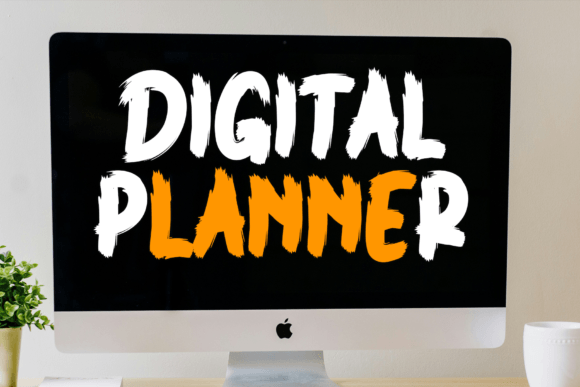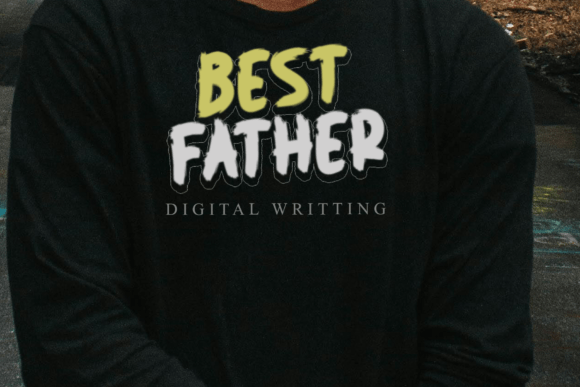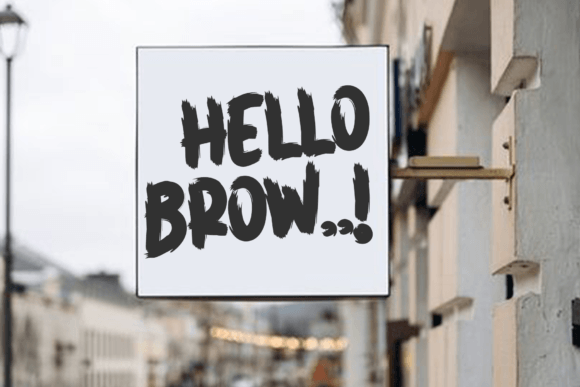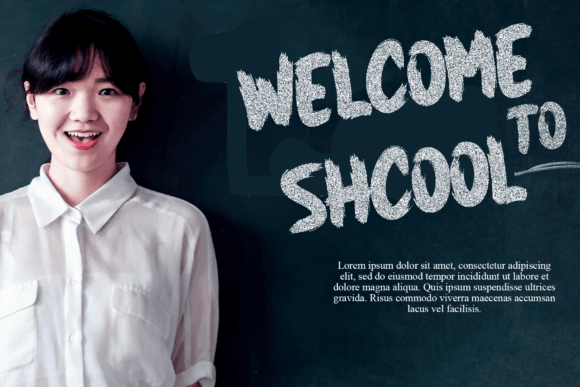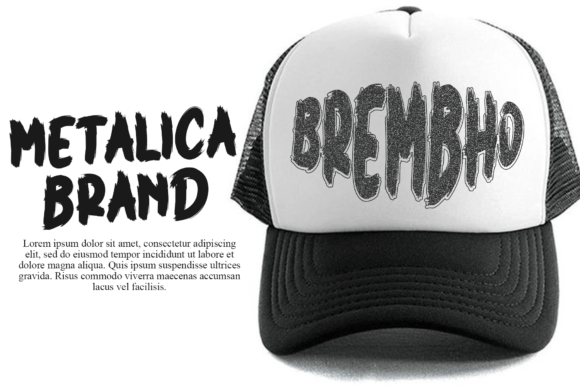
Unleash Your Creativity with Brush Kraft Font: The Ultimate Display Font for Designers and Crafters
Are you tired of using the same old fonts for your designs? Look no further! Brush Kraft Font is here to take your creative projects to the next level. This cool and spooky display font is perfect for designers and crafters who want to add a touch of uniqueness to their work. With its natural and distinctive style, Brush Kraft Font is incredibly versatile and can be used for a wide range of designs.
The Unique Style of Brush Kraft Font
Brush Kraft Font boasts a one-of-a-kind style that is both cool and spooky. Its natural, hand-crafted look makes it perfect for designs that require a personal touch. The font’s unique style is reminiscent of brush strokes, giving it a organic and earthy feel. This makes it an excellent choice for designers and crafters who want to add a touch of whimsy to their work.
The best part about Brush Kraft Font is that its uses are limitless! The only limit is your imagination. Whether you’re designing a logo, creating a poster, or crafting a handmade card, this font is sure to make your project stand out. From spooky Halloween designs to rustic wedding invitations, Brush Kraft Font is the perfect choice for any project that requires a touch of personality.
Brush Kraft Font is a must-have for designers and crafters who want to take their work to the next level. Whether you’re a professional designer or a hobbyist crafter, this font is sure to inspire your creativity. With Brush Kraft Font, you can:
- Create unique and eye-catching logos for your business or brand
- Design spooky and fun Halloween decorations and invitations
- Make rustic and charming wedding invitations and decorations
- Develop eye-catching posters and flyers for your next event
- Add a personal touch to your handmade cards and gifts
Tips for Using Brush Kraft Font
To get the most out of Brush Kraft Font, here are a few tips:
- Use Brush Kraft Font in combination with other fonts to create a unique and eye-catching design
- Don’t be afraid to get creative and try out new and unusual design ideas
- Use Brush Kraft Font to add a personal touch to your designs and make them stand out
In conclusion, Brush Kraft Font is a versatile and unique display font that is perfect for designers and crafters who want to add a touch of personality to their work. With its natural and distinctive style, Brush Kraft Font is incredibly versatile and can be used for a wide range of designs. Whether you’re a professional designer or a hobbyist crafter, Brush Kraft Font is sure to inspire your creativity and take your work to the next level.